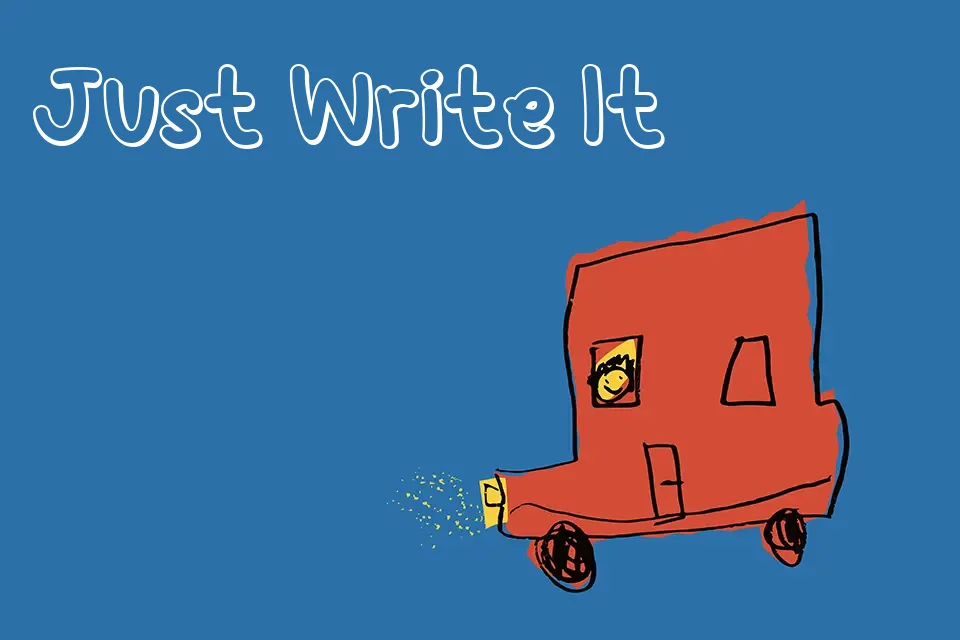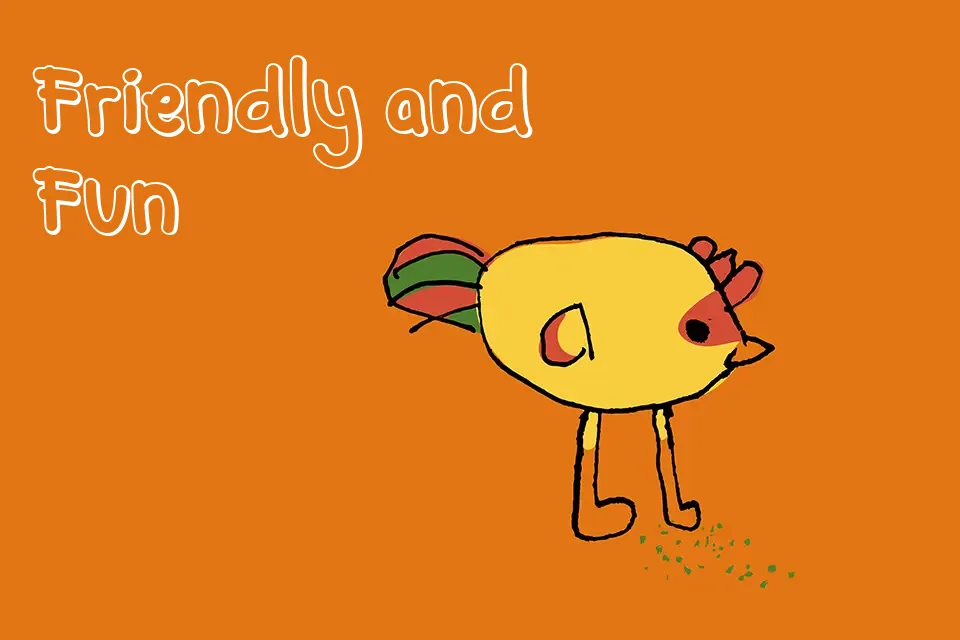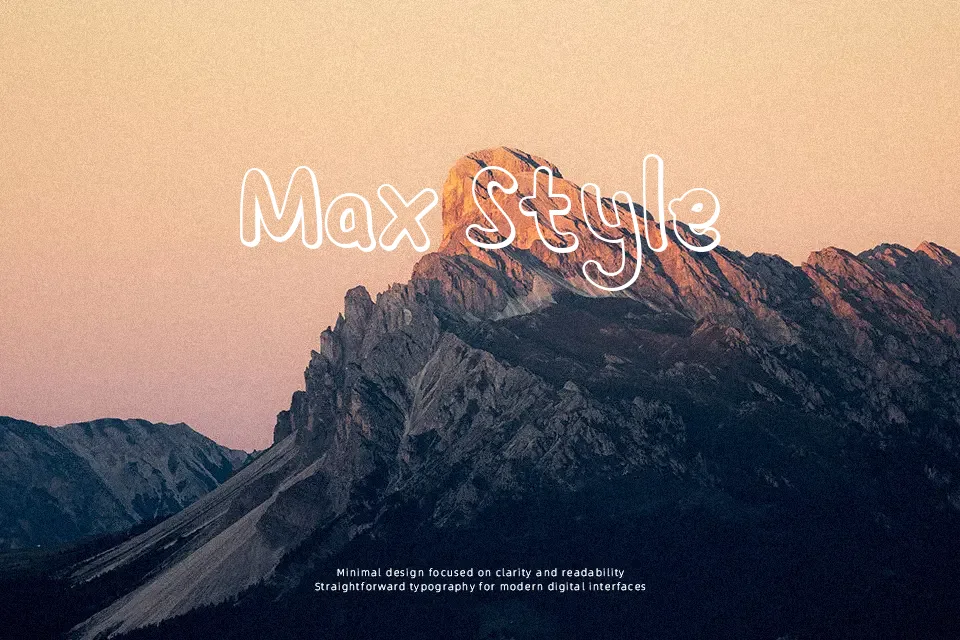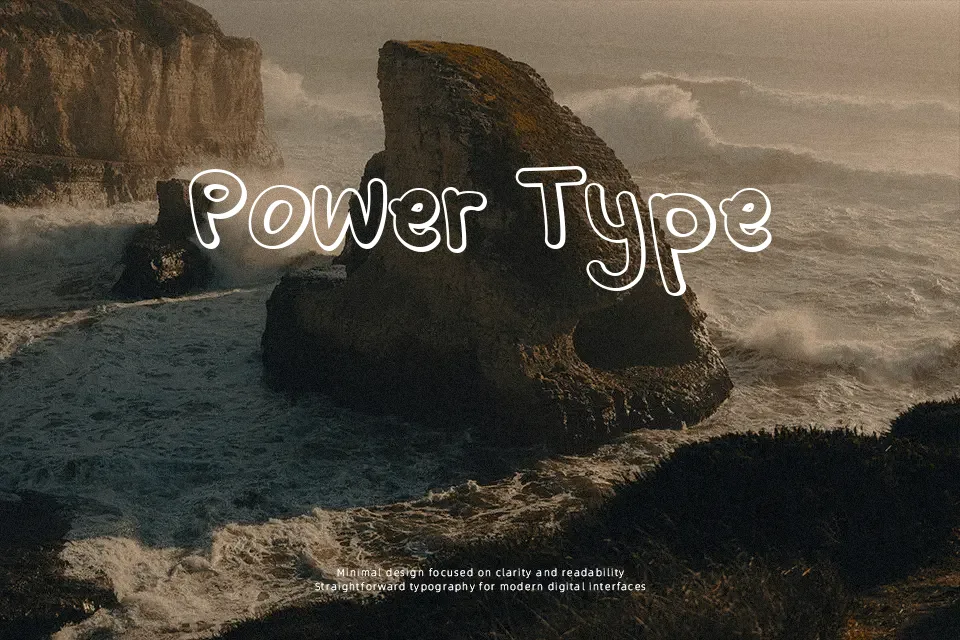
So Young Font
So Young Font uses rounded, irregular letterforms with thick, smooth strokes and a loose handwritten rhythm. The proportions feel broad and lively, while the spacing keeps short words readable in larger display settings. Uppercase and lowercase characters maintain a casual comic-like consistency rather than a formal text structure. It works well for children’s graphics, playful product labels, and headline-led designs that need an approachable look. The font’s soft, decorative forms are easier to read at larger sizes; small text and long passages can become visually tiring.